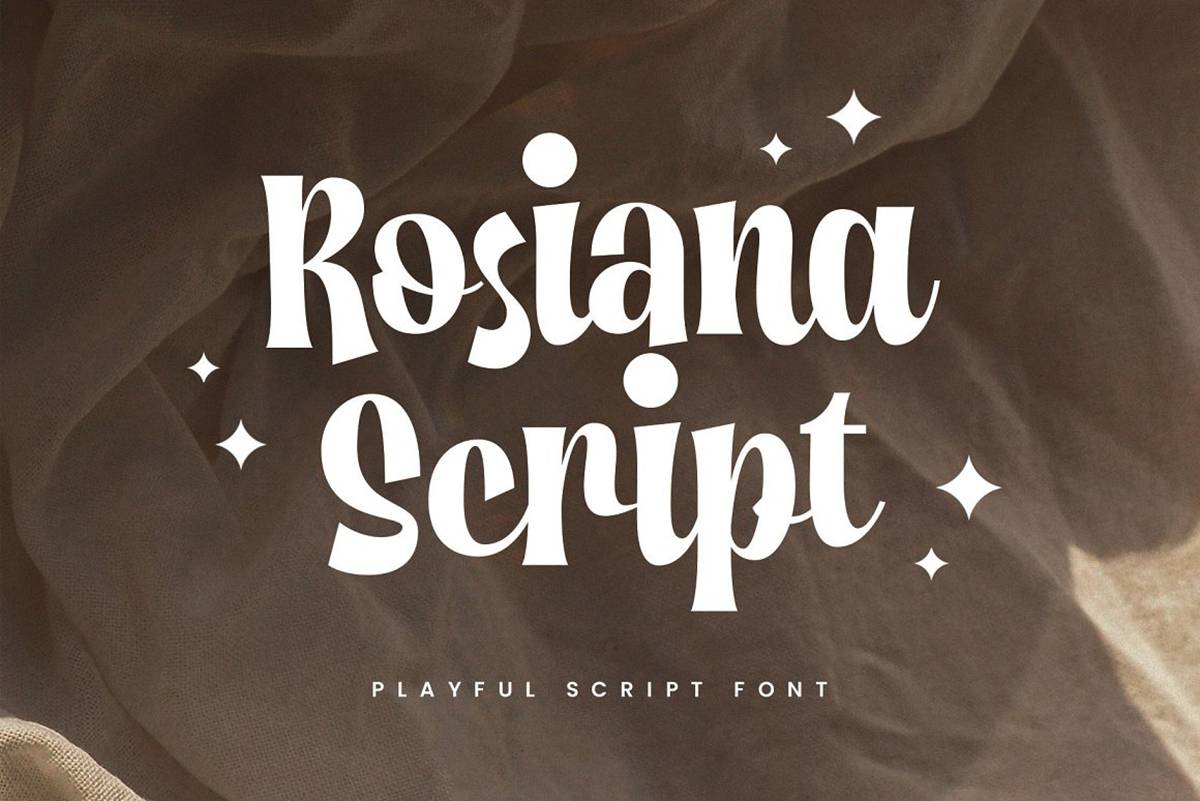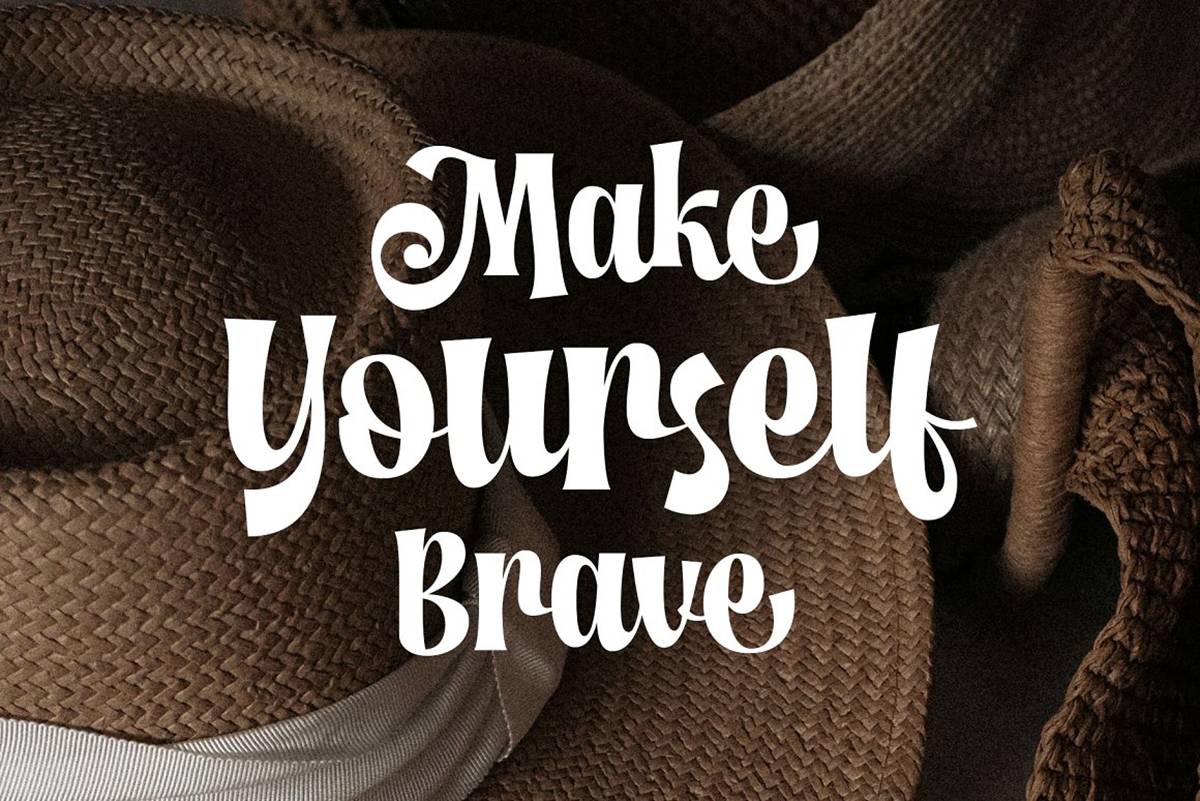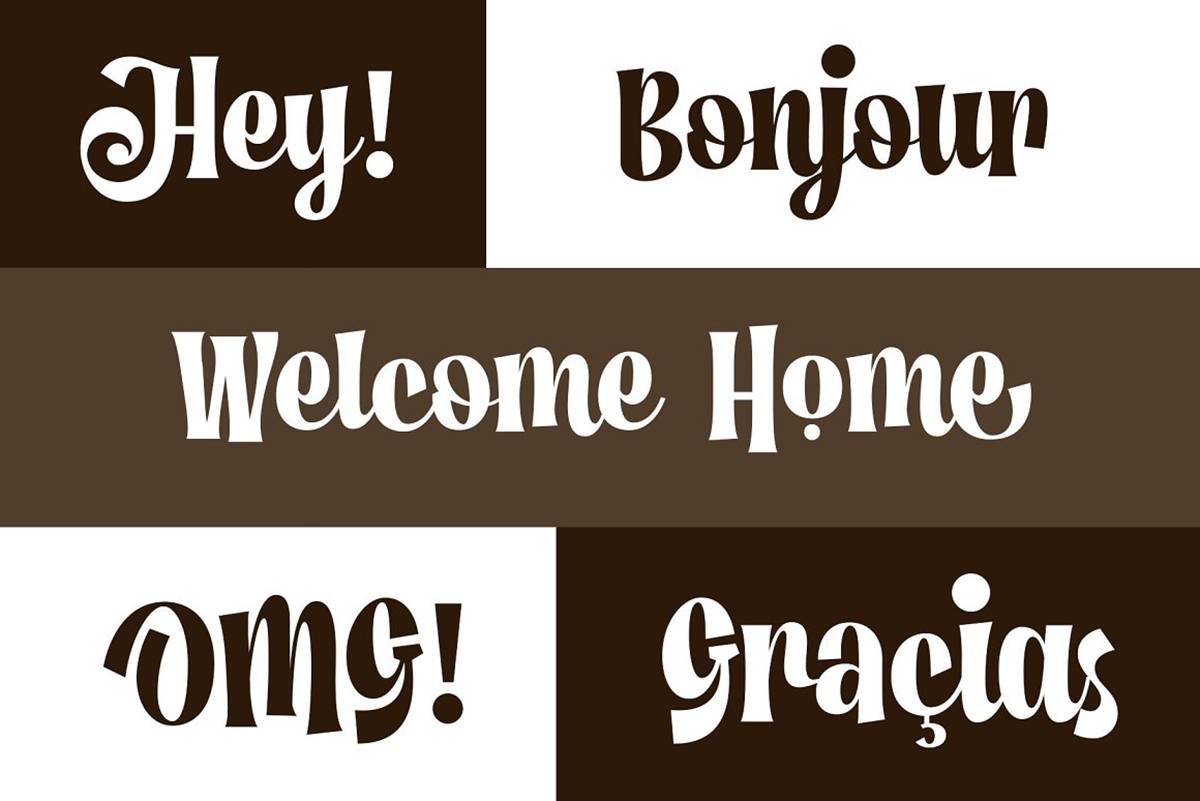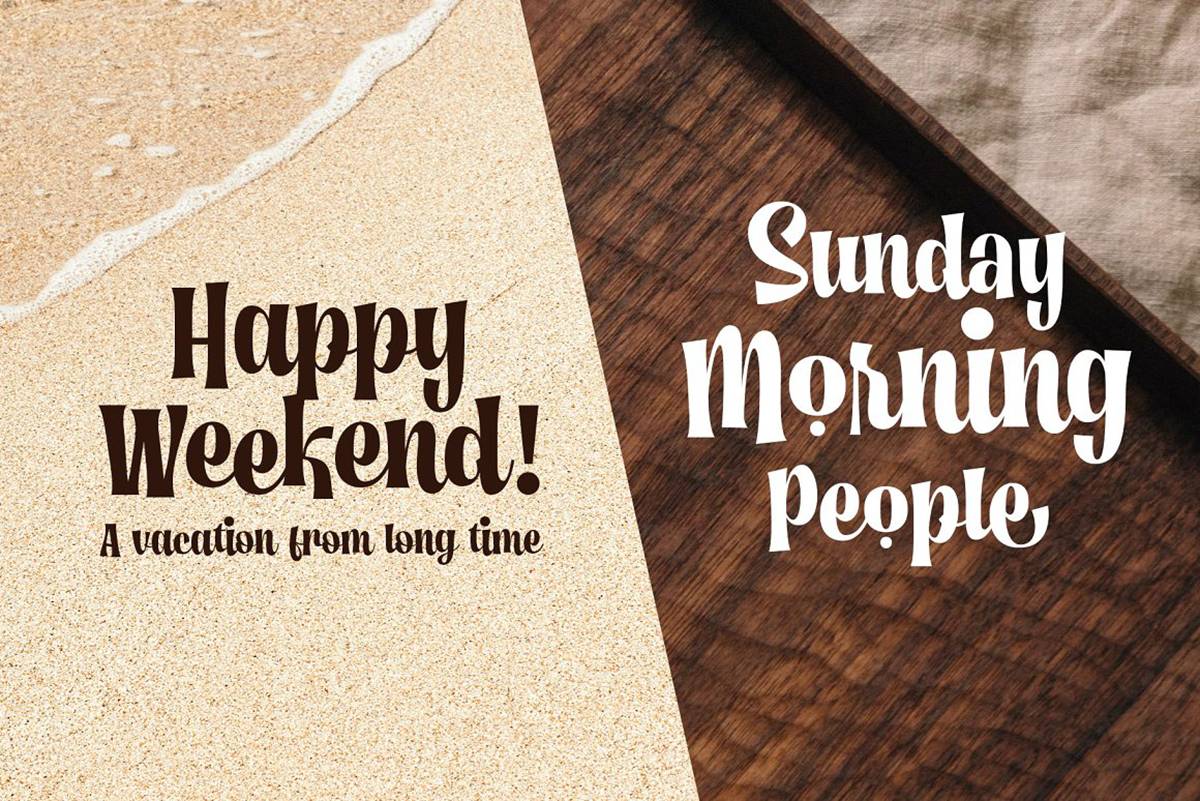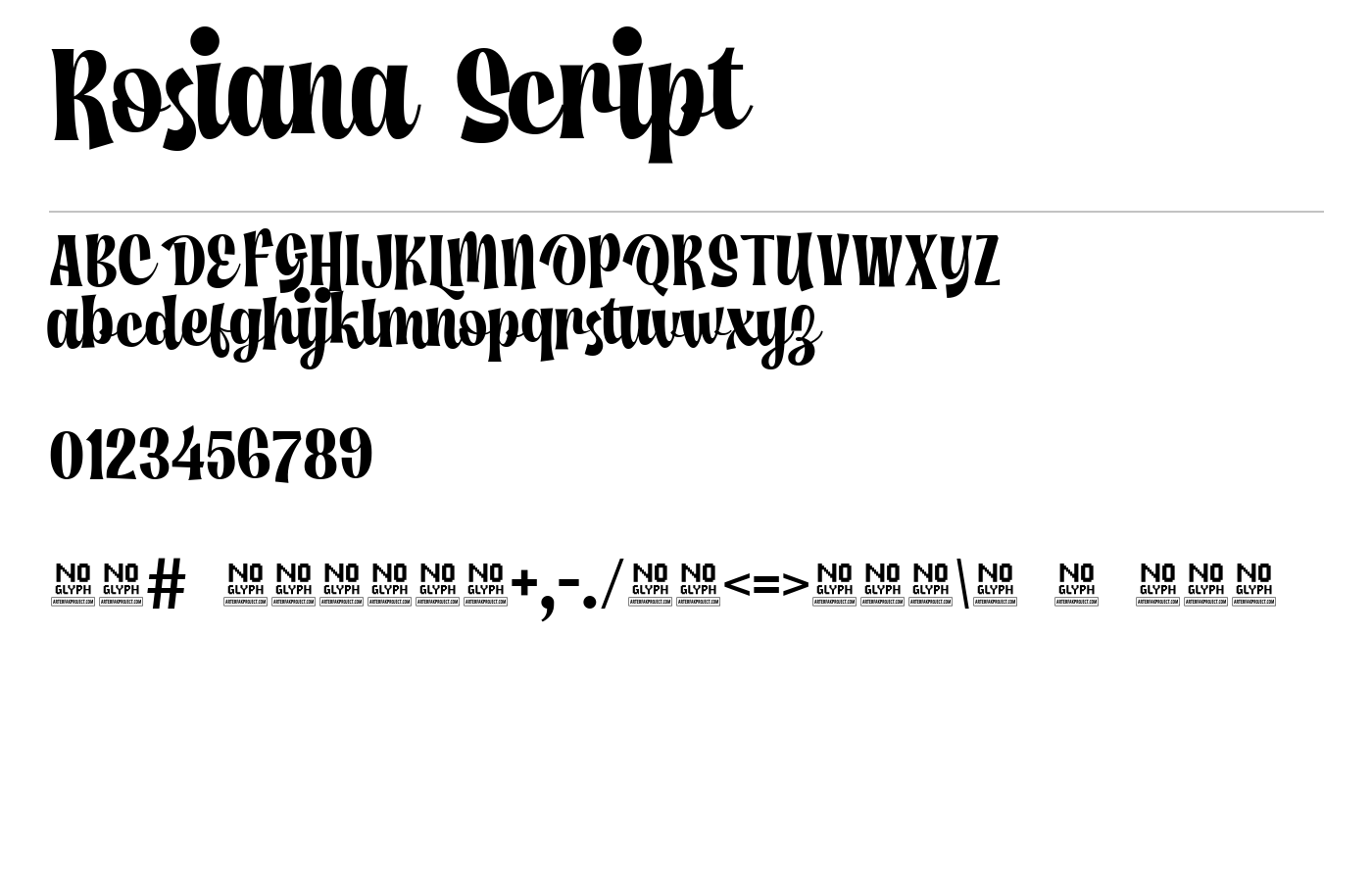
Rosiana Script is a bold and playful display script with a strong, expressive character. Its thick strokes and quirky letterforms create a lively and decorative style that’s ideal for eye-catching headlines, branding, and packaging where a fun yet distinct personality is needed. This font works well for creatives looking to add an artistic and informal flair to their designs.
Rosiana Script Font
About Rosiana Script Font
| Font family | Rosiana Script Font |